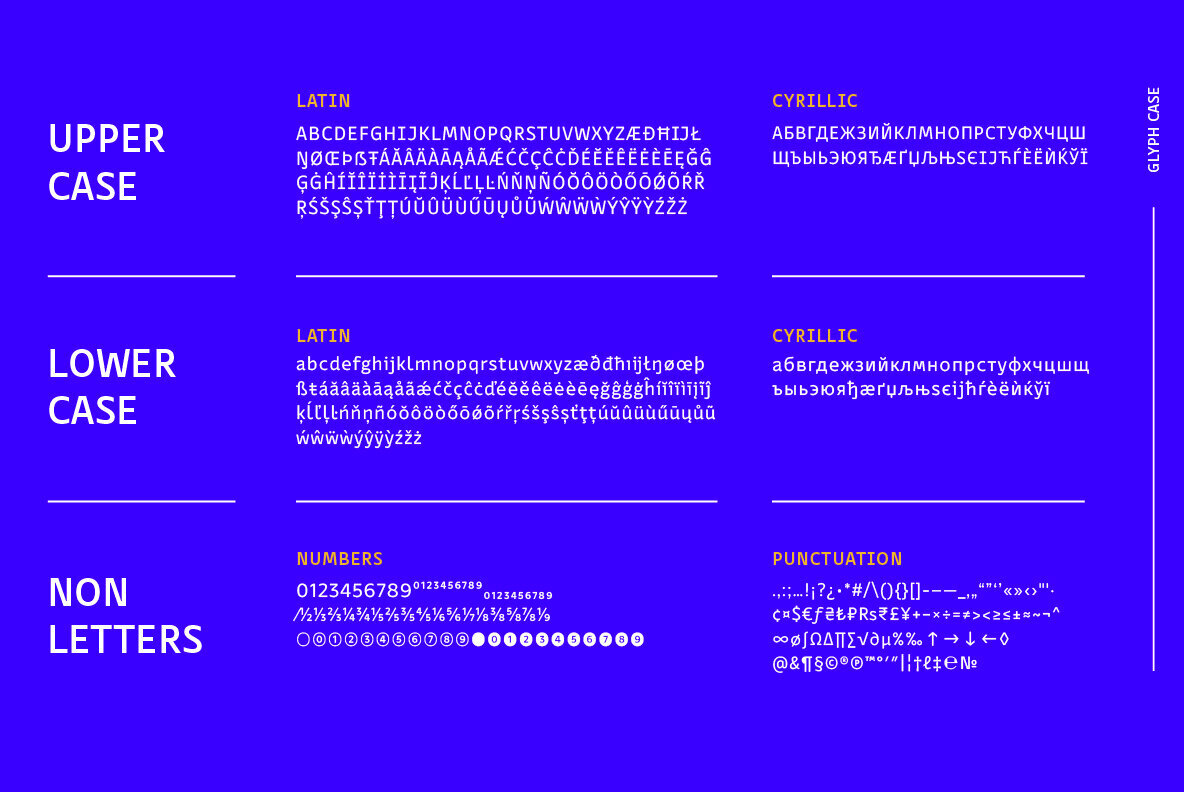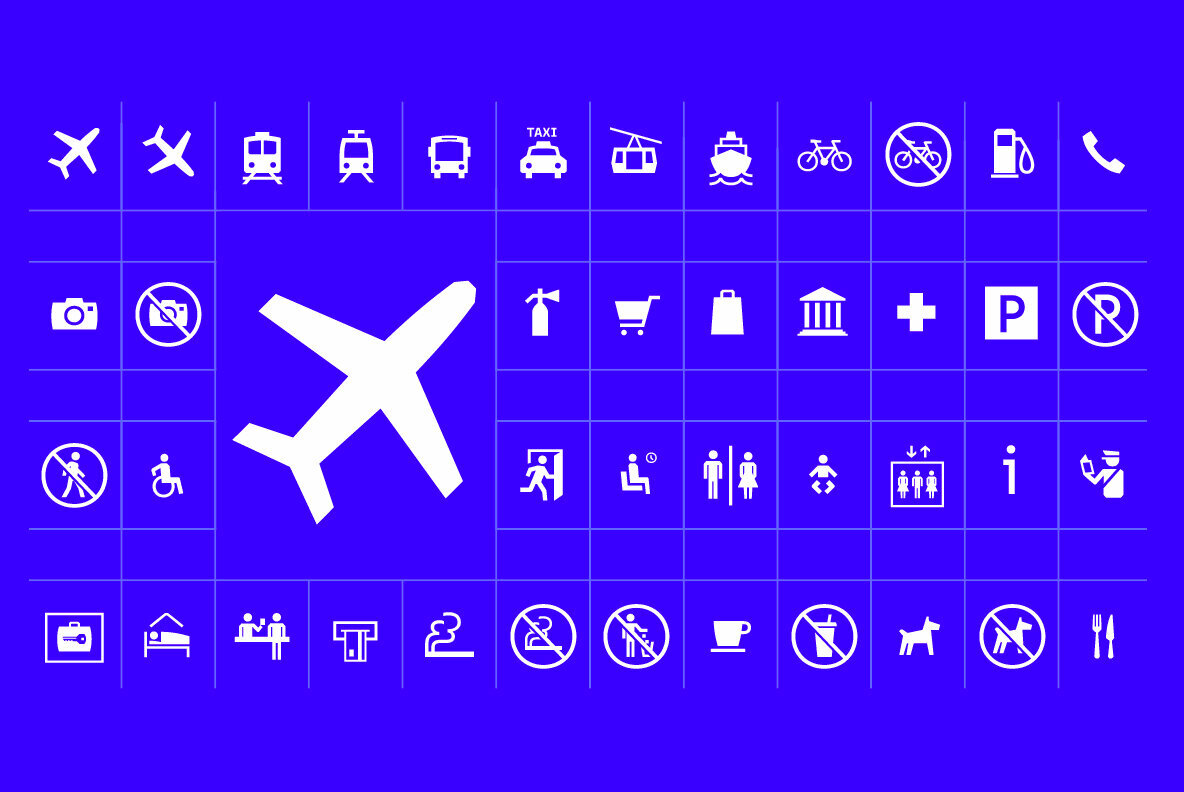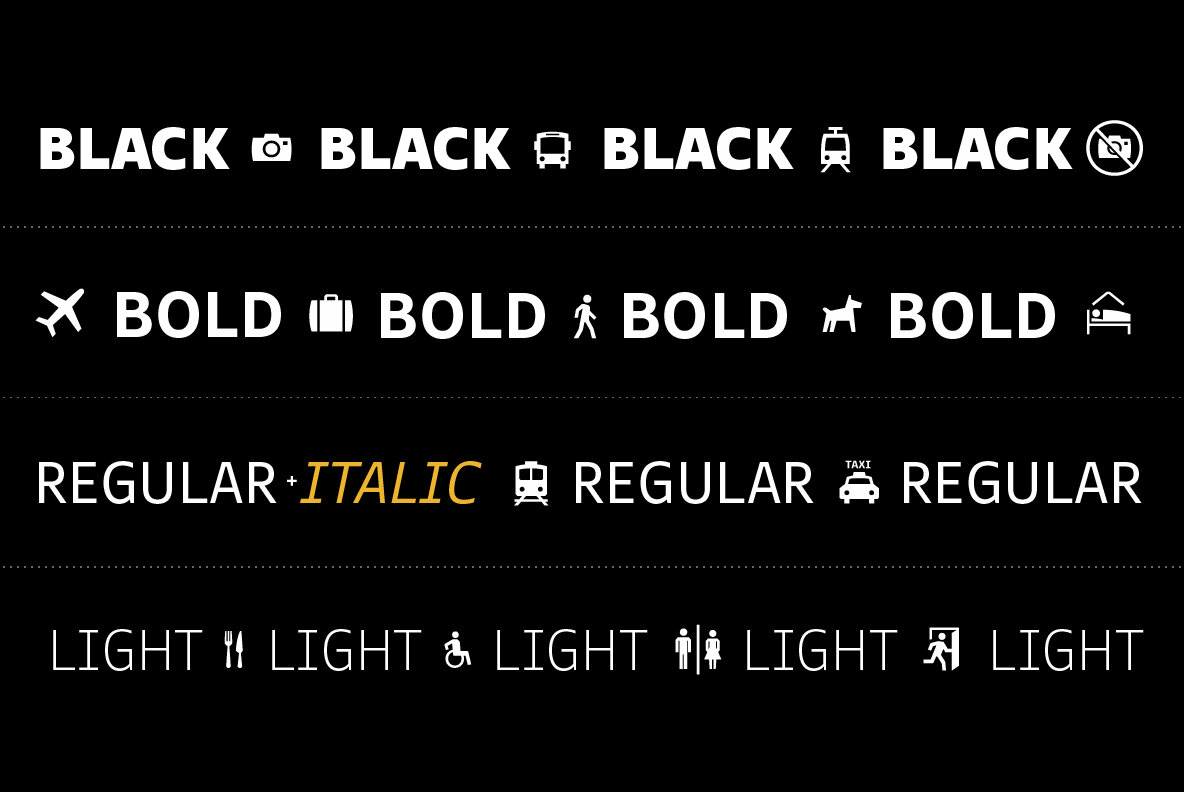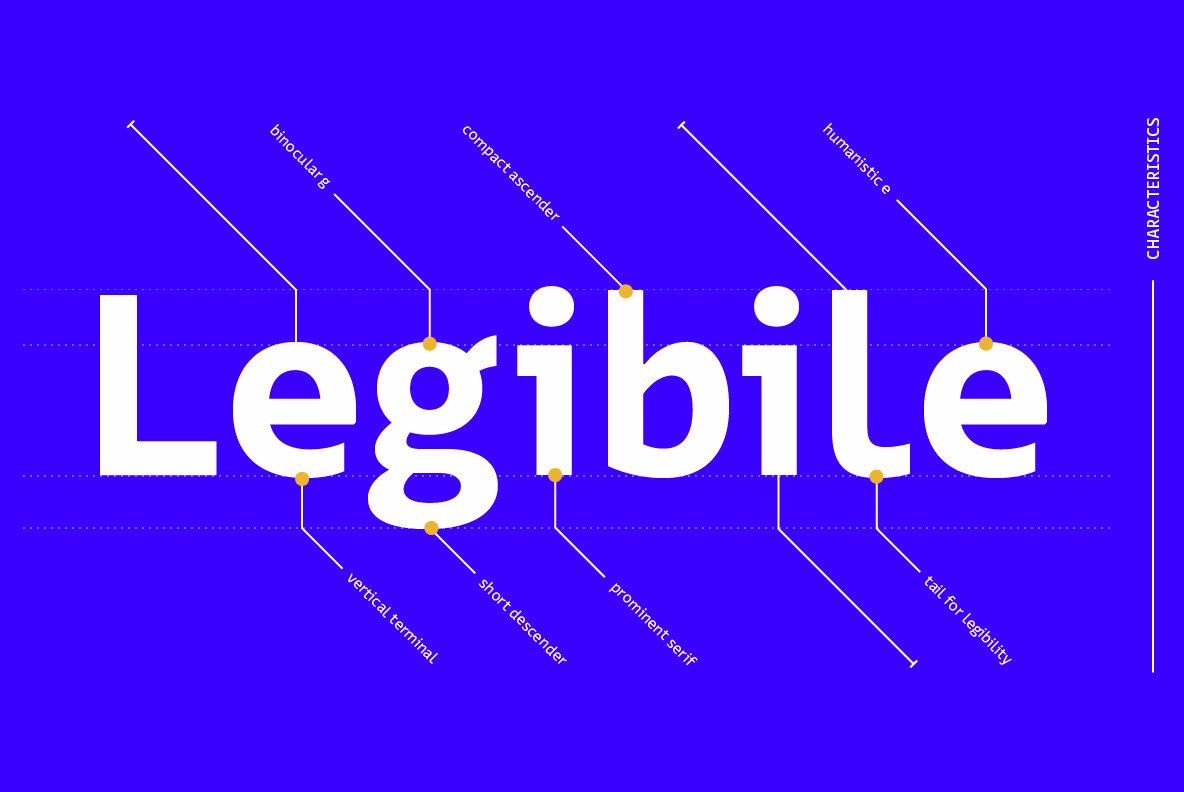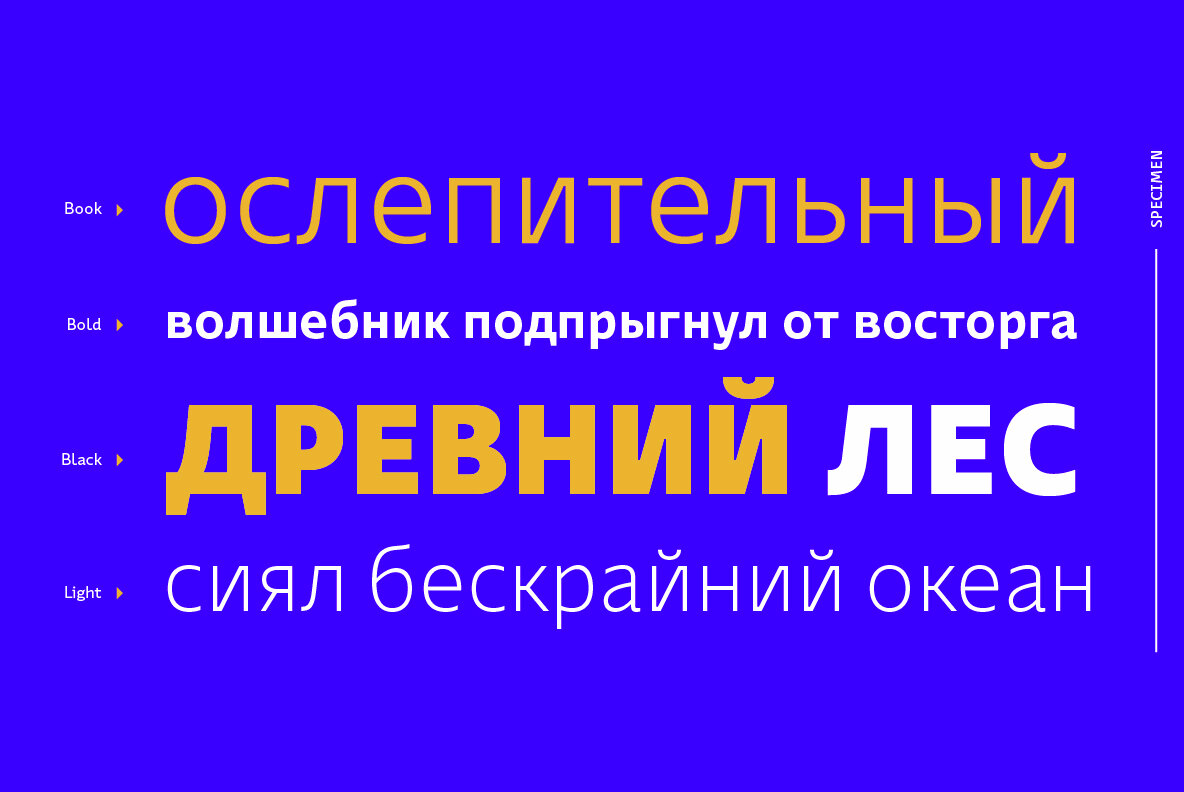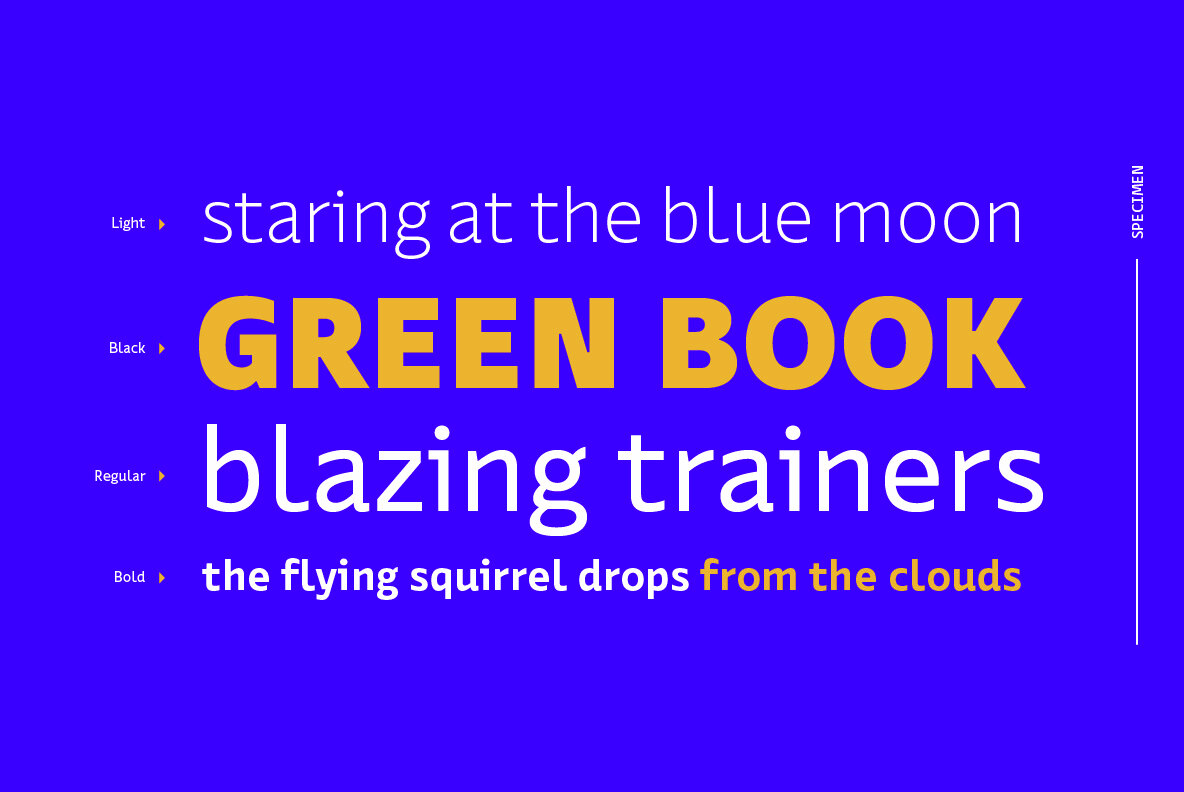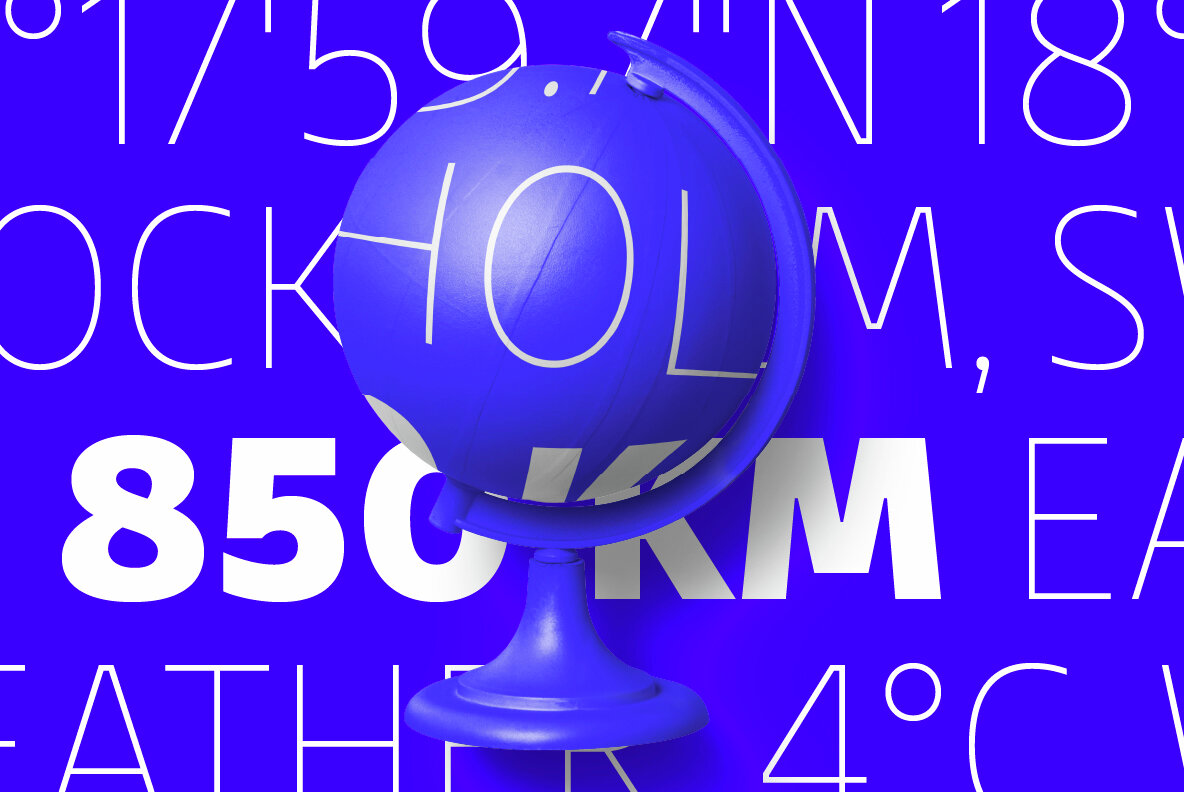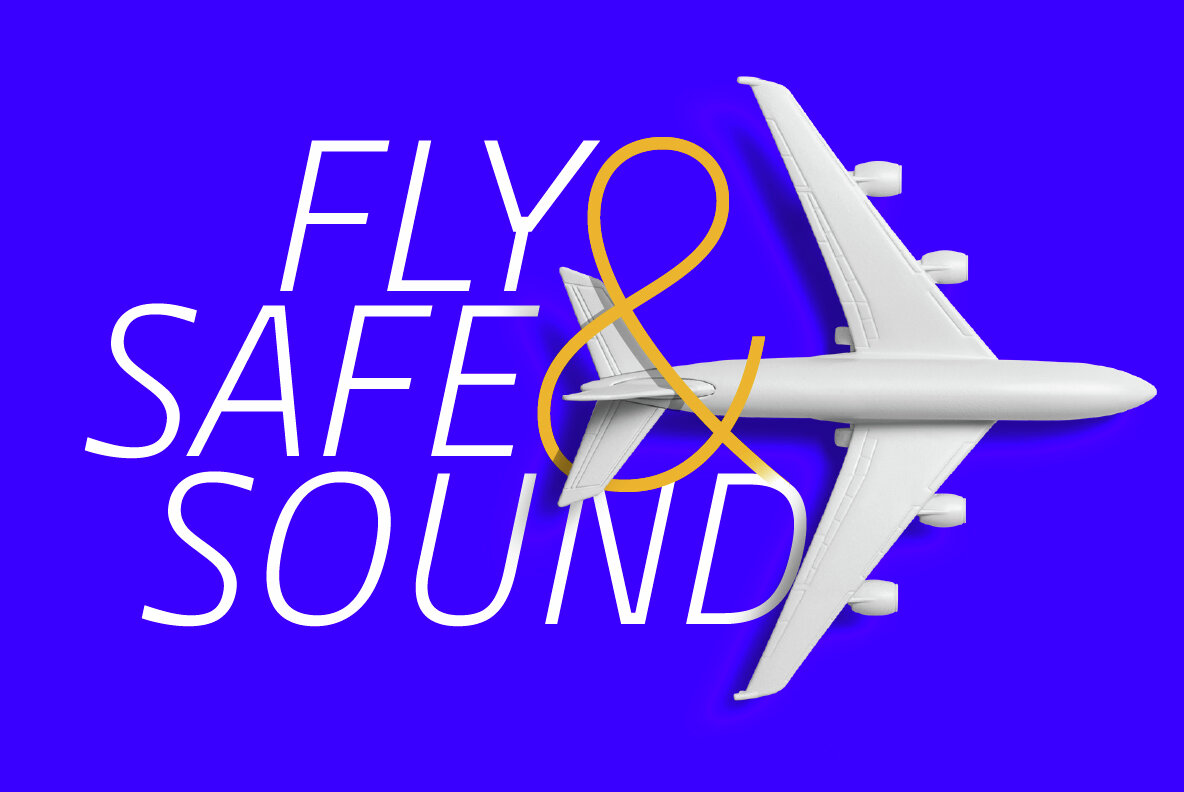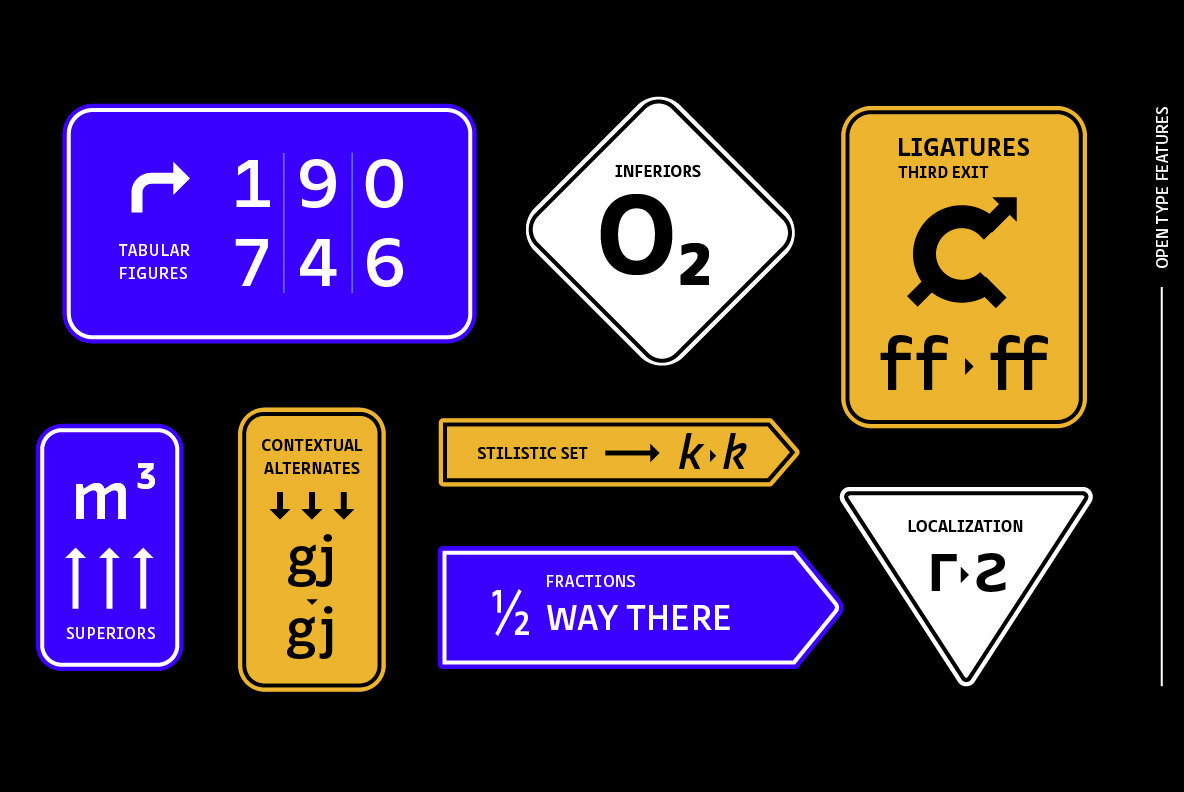
Ways Font
Ways is the latest arrival in our portfolio of collaborative sans-serif fonts. The name is no coincidence, as Ways pulls out all the stops to bring you excellent legibility. Combined with brutal and elegant details for a distinct humanist flair, this sans offers perfect functionality across all weights.
Visual compensations, extra white space, wider apexes, subtle tweaks, and moderate ink traps distinguish Ways among similar typefaces. Use over 690 glyphs, extended Latin and Cyrillic support, extensive OT features set, icon set of more than 60 navigation pictograms, and one variable style, to design full-fledged signage systems that get you from point A to point B without relying on G-Maps.